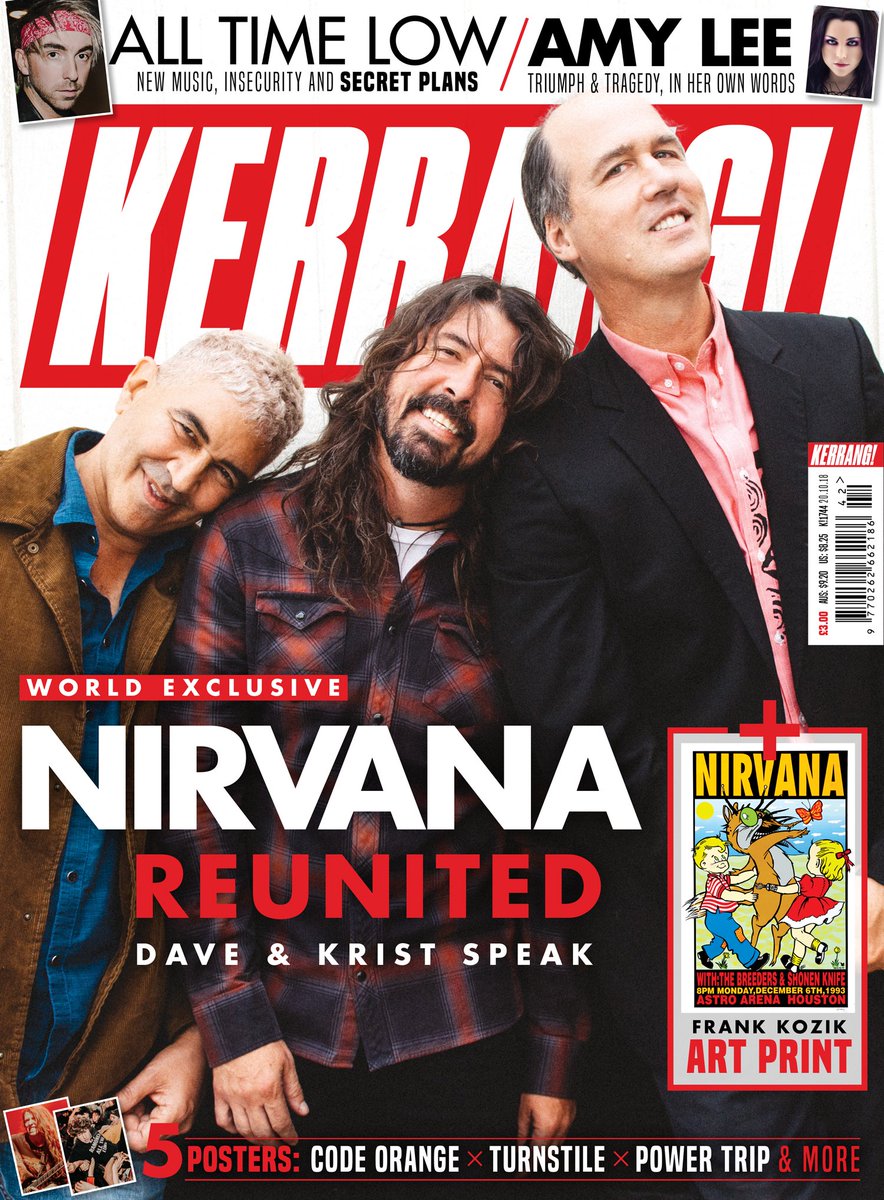
Kerrang Font
BandKerrang! is a UK-based magazine devoted to metal, punk, and rock music. It features interviews with artists and bands, reviews of new releases, and coverage of music festivals and concerts. It was first published on 6 June 1981 as a one-off supplement in Sounds, then appearing fortnightly, and now appearing weekly.
Druk Condensed Super Italic is used on the nameplate. Designed by Berton Hasebe and distributed by Commercial Type in 2014, Druk is a family of display sans-serifs. It is offered in three widths, each with several italic and weight options.